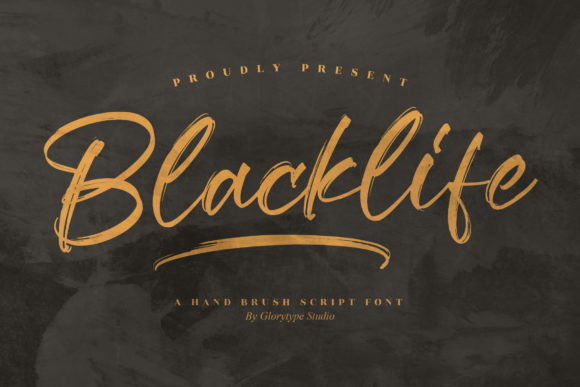
The Elusive Perfect Font: My Journey with Blacklife
Ah, the quest for the perfect font. We’ve all been there – scrolling through endless font libraries, trying to find that one script that speaks to our creative vision. I recall working on a branding project for a client who wanted a logo that exuded elegance and sophistication. I spent hours browsing through font libraries, but nothing seemed quite right. That was until I stumbled upon Blacklife, a stunning Hand Brush Script Font from Glorytype Studio.
First Impressions: A Love Affair with Blacklife
As soon as I laid eyes on Blacklife, I knew I had found something special. The fluid brushstrokes, the elegant ligatures, and the whimsical charm all captivated me. I couldn’t wait to dive in and explore its features. Here’s what I love about Blacklife:
- ✨ Elegant and sophisticated, perfect for high-end branding projects
- 💫 Beautiful script taste that’s perfect for quotes, posters, and invitations
- 🎨 Highly versatile and suitable for a wide range of projects, from logos to homeware designs
The Honest Review: No Perfect Font is Perfect
While Blacklife has stolen my heart, it’s not without its quirks. Here are a few things to keep in mind:
- 🤔 Some users may find the font a tad too ornate for certain projects
- ⚠️ Limited use of bold weights may not be ideal for headlines or titles
The Story Behind Blacklife: A Designer Inspiration
Glorytype Studio, the creator of Blacklife, is known for its passion for typography and design. According to their website, Blacklife was inspired by the beauty of handwritten scripts and the elegance of traditional calligraphy. The font’s creator aimed to craft a script that would evoke emotions and add a personal touch to any design project.
- Q: Is Blacklife suitable for body text?
- A: While Blacklife is a beautiful script font, it’s best suited for headlines, titles, and short paragraphs. For body text, consider a more legible font.